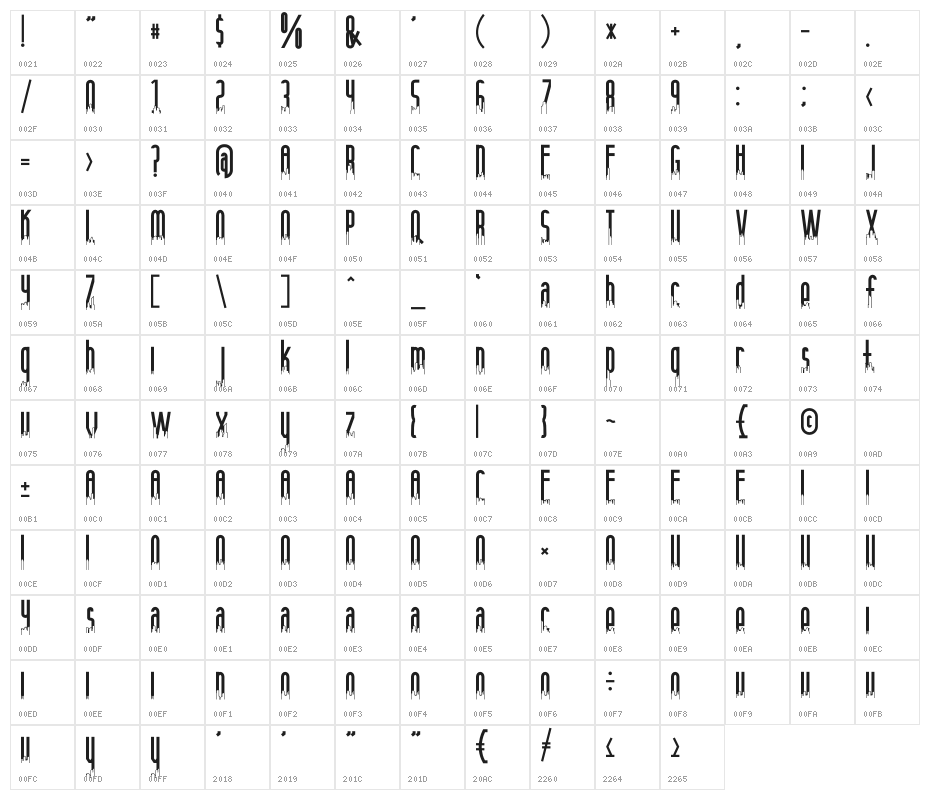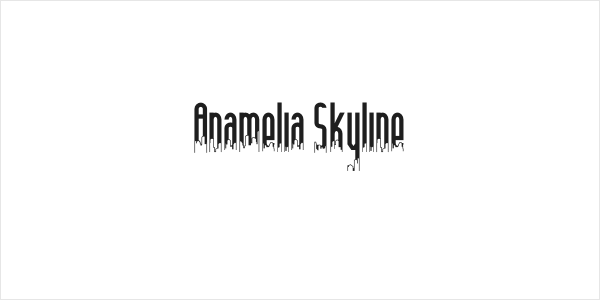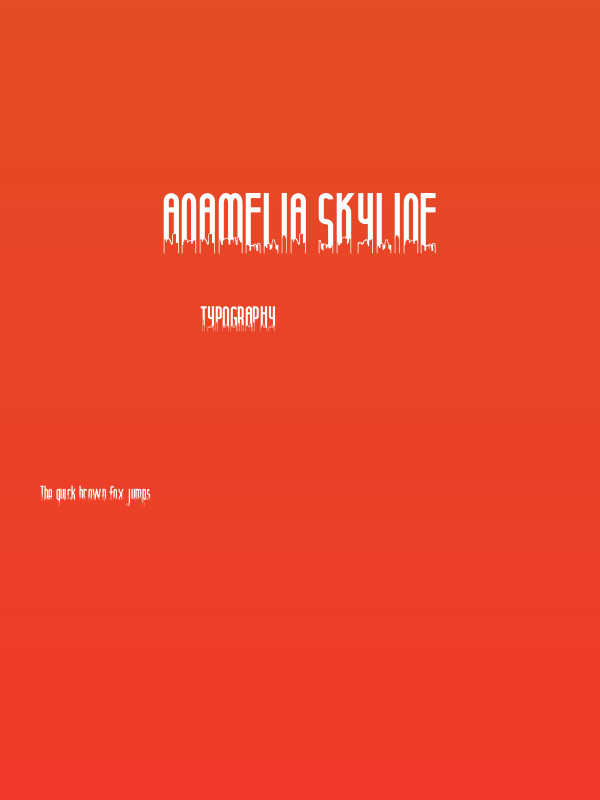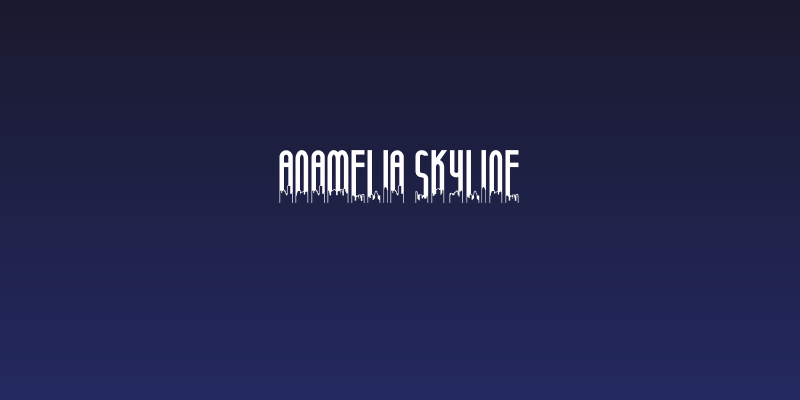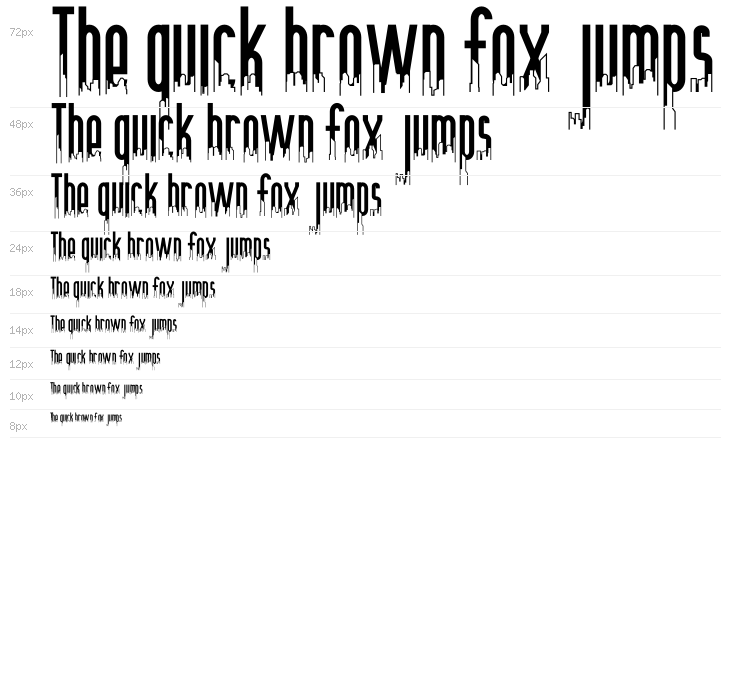
Anamelia Skyline Font
Anamelia Skyline Description
This font features a unique and striking design that incorporates elements of a city skyline into the letterforms. The tall, narrow characters are reminiscent of skyscrapers, with vertical lines extending upwards to mimic the silhouette of a cityscape. The uppercase and lowercase letters maintain a consistent height, creating a cohesive and modern appearance. The numbers and special characters follow the same architectural theme, making the font ideal for projects that require a bold and urban aesthetic. The overall style is both decorative and contemporary, with a high contrast in stroke thickness that adds to its visual impact.
Overall StyleModern, Decorative
Proposed ProjectsIdeal for urban-themed posters, architectural branding, city event promotions, and modern graphic designs.